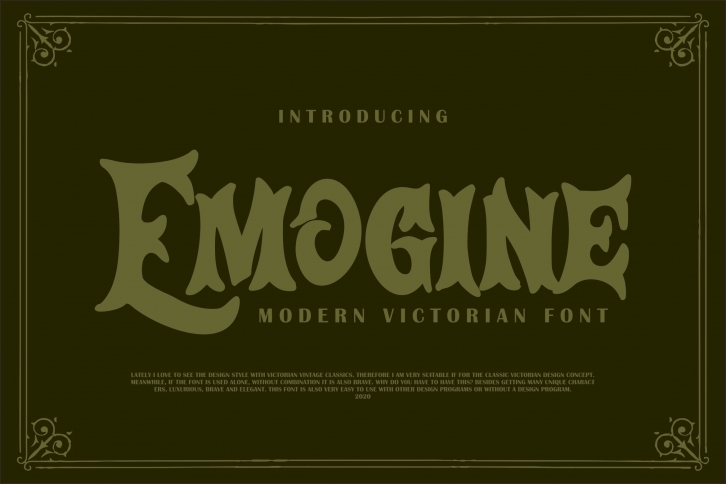
Emogine is a trendy and unique font with an authentic style. It was designed by Vunira and it's a great choice for creative people who need such a font. It was released on July 7, 2020 and the file size is 16.88 MB. Emogine will add an organic vibe to any design idea!